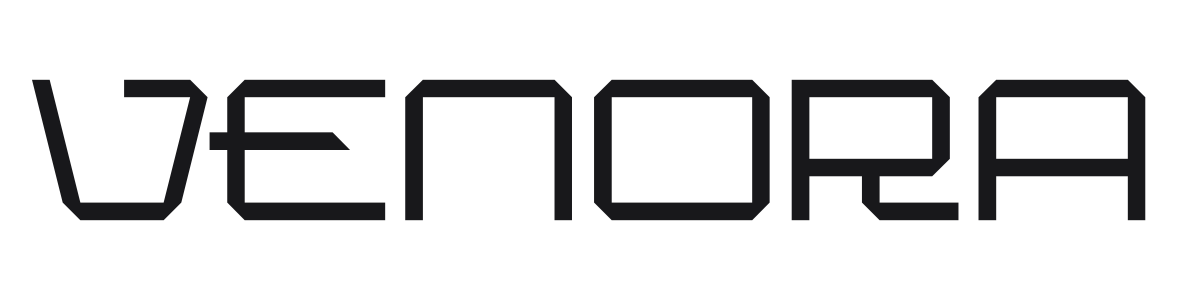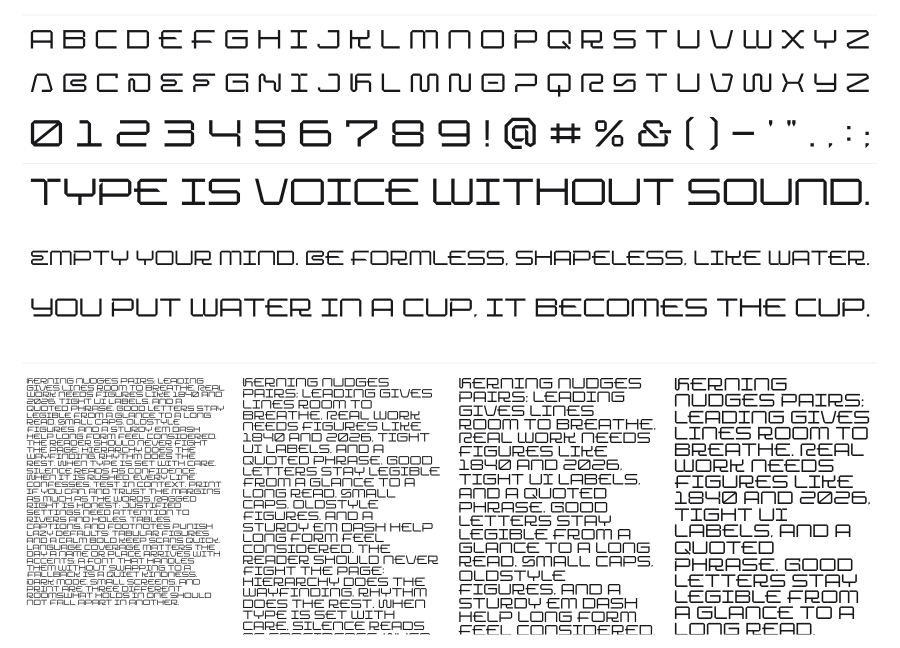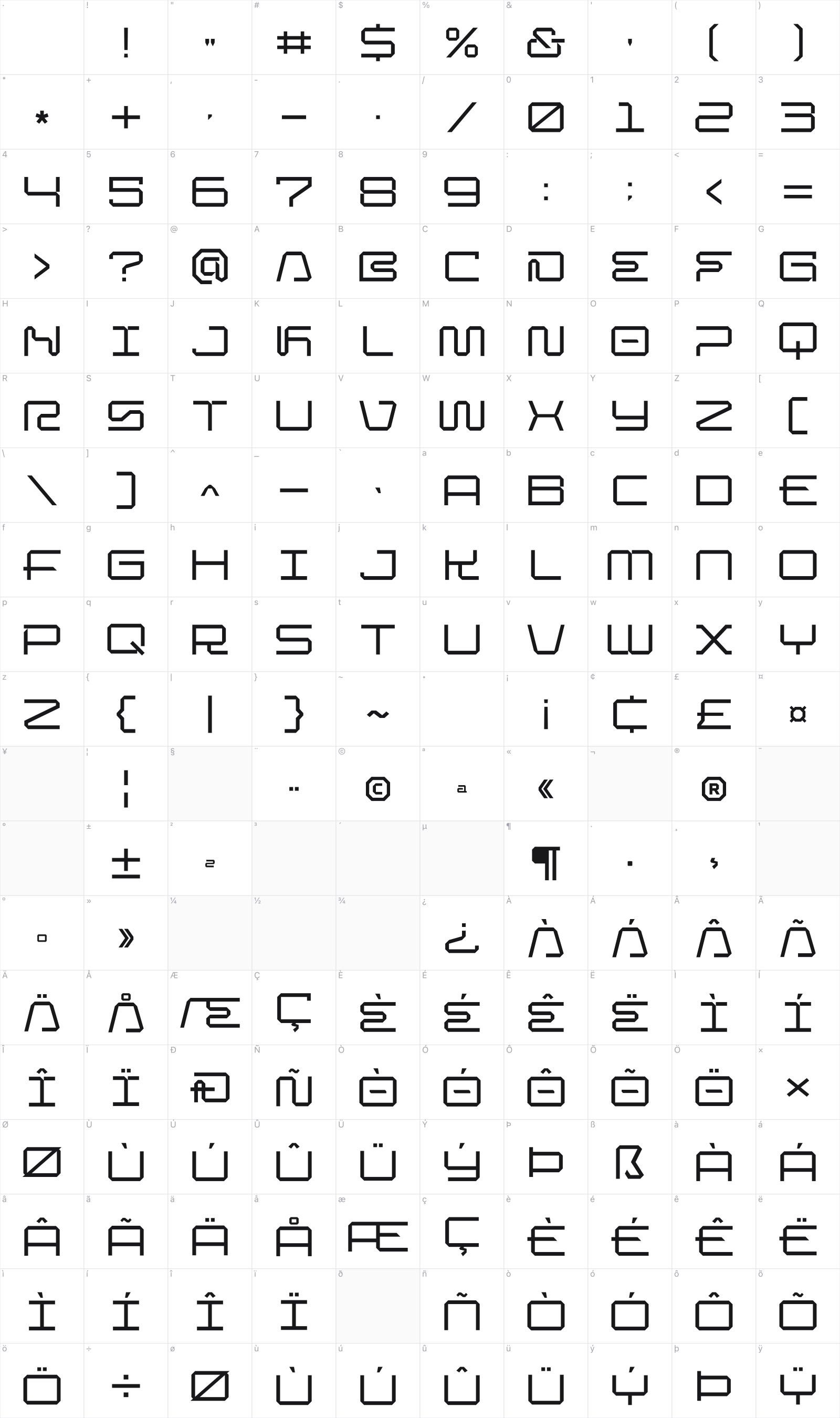
Venora
Venora is a geometric square sans with a clean, modular structure and lightly rounded corners that give it a polished, digital edge. Each character sits within a near-uniform rectangular footprint, producing a consistent, grid-like rhythm that reads as both minimal and unmistakably futuristic. It works well for tech branding, gaming titles, and any headline that needs a high-tech edge without visual noise.